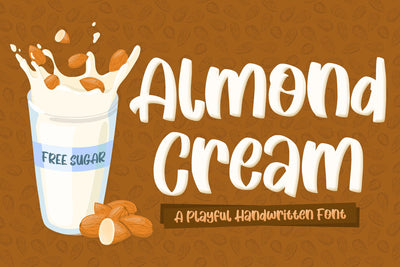
Almond Cream Fun Font
Almond Cream is a cute and casual handwritten font with an incredibly friendly feel. Whether you’re looking for fonts for Instagram or calligraphy scripts for DIY projects, this font will turn any creative idea into a true piece of art!